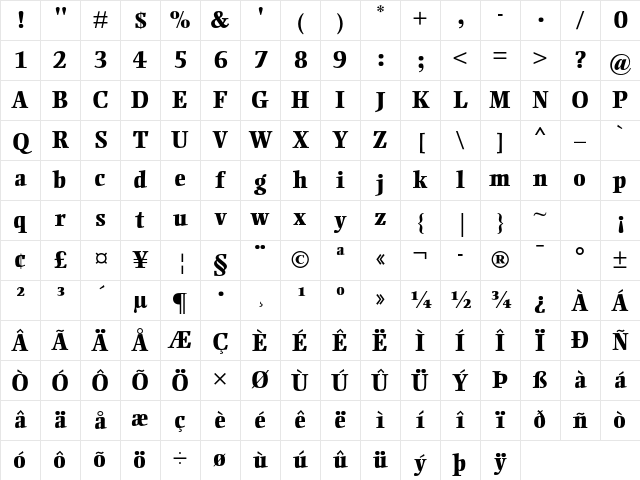
Ellington MT Std Extra Bold
Style: Extra Bold
Designer: Michael Harvey
Design Context for Ellington MT Std
Ellington MT Std is a composed and adaptable typeface that performs quietly and consistently across a wide range of design contexts. Its bold stroke weight gives it real presence on the page.
Pro Tip: Use Ellington MT Std in both headline and body roles to test its range before committing to a single application.